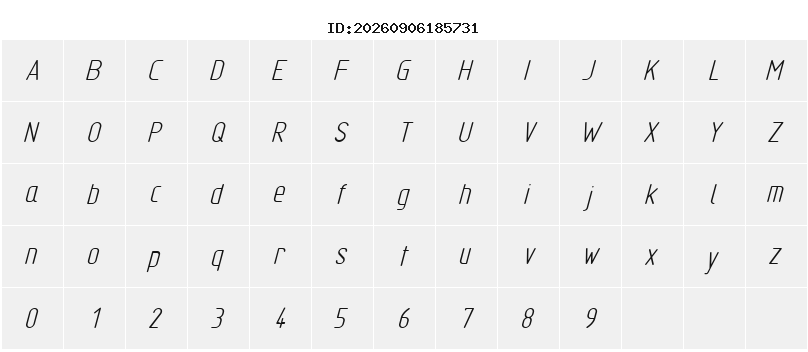
• Font Name: TGL 31034-2
• Full Font Name: TGL 31034-2
• Designer: Peter Wiegel
• Manufacturer: Peter Wiegel
About TGL 31034-2.ttf
TGL 31034-2.ttf is a modern, elegant sans-serif font designed for ultimate readability and visual harmony. Perfect for branding, headlines, web design, and print materials.